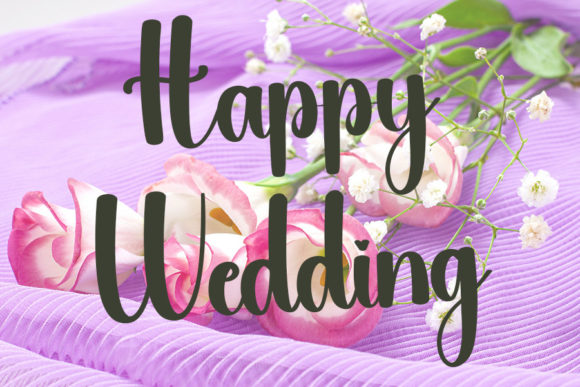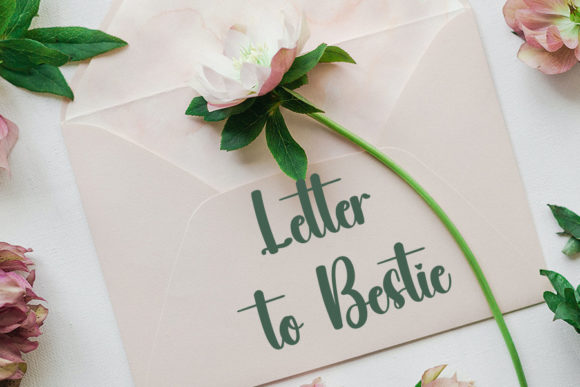
Sweet Bestie Font
db-ku.com - Script & Handwritten -- Sweet Bestie is a friendly handwritten font, carefully designed to become a true favorite. It maintains its classy calligraphic influences while feeling contemporary and fresh.